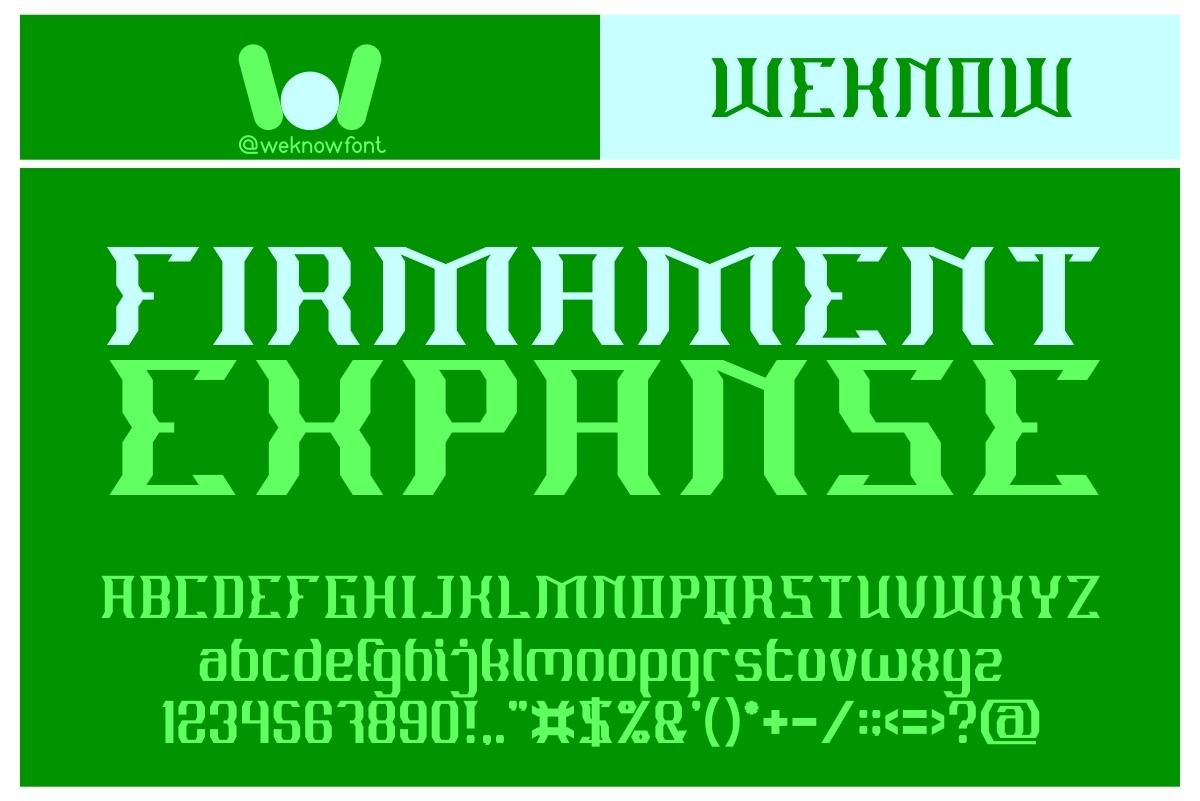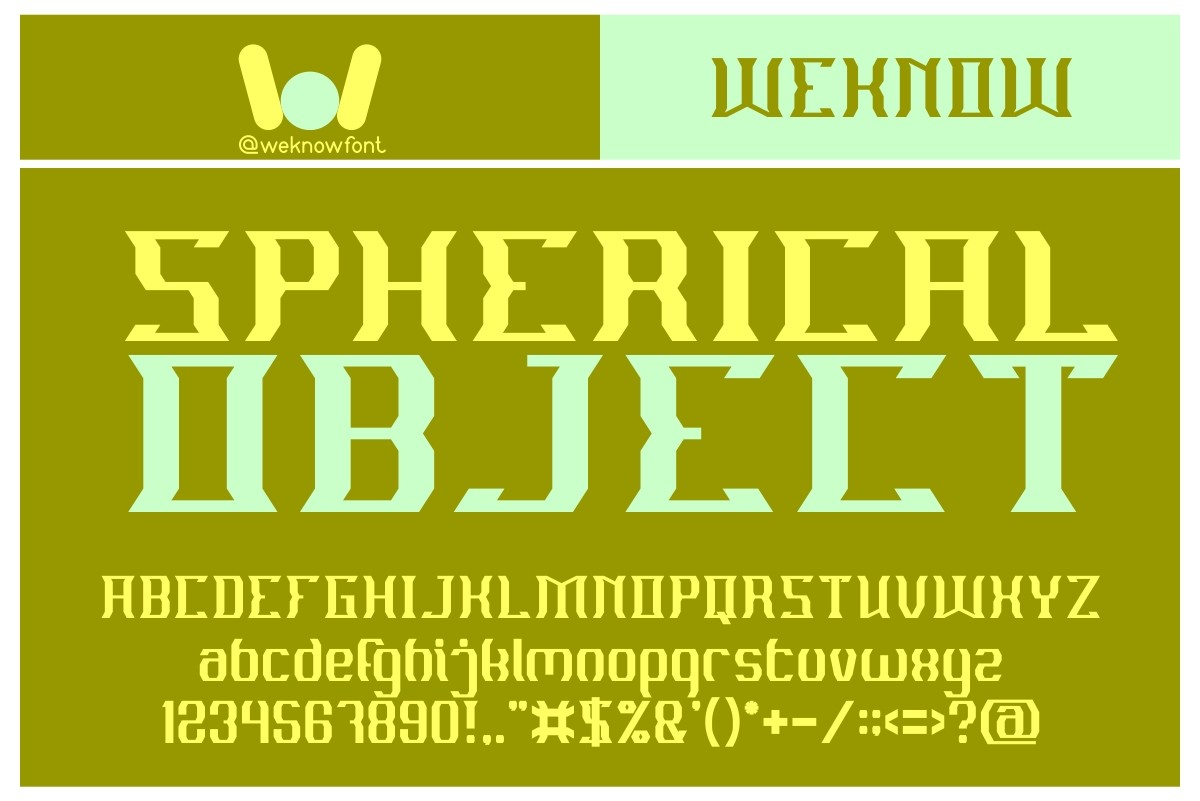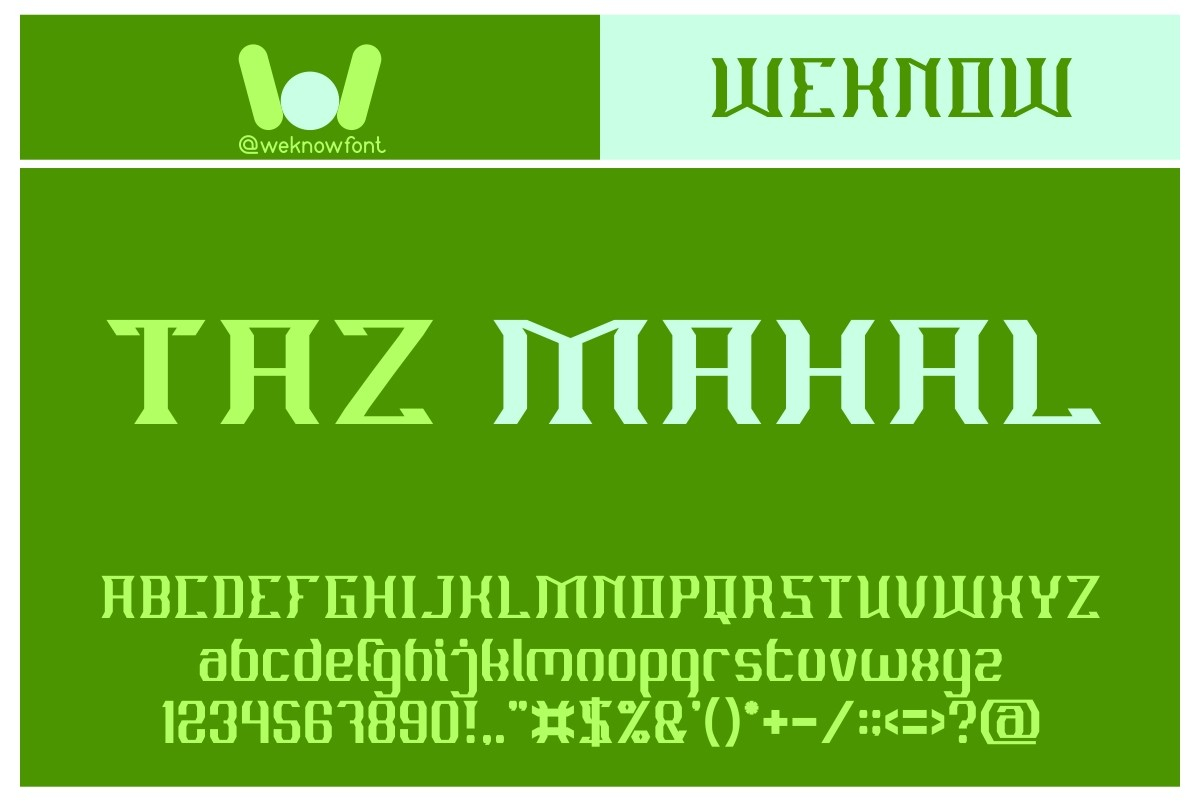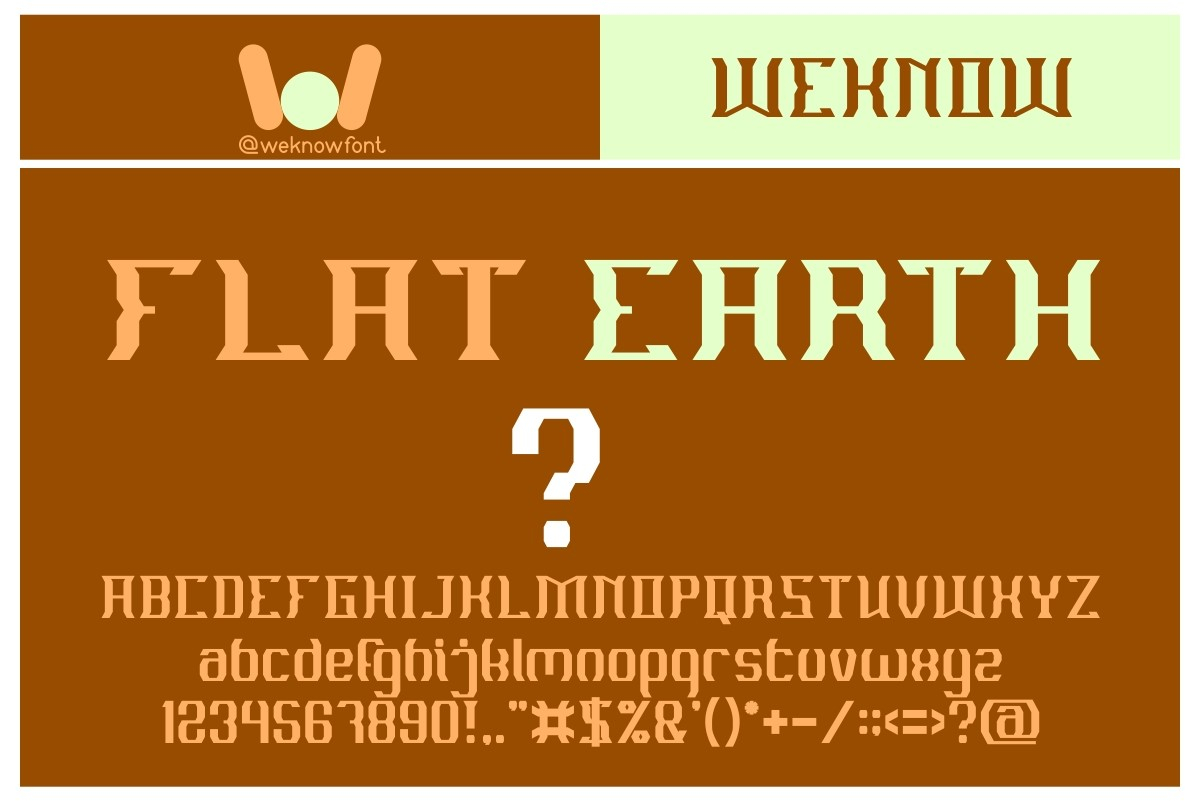
Material Science Font
About Material Science Font
Material Science is a fancy blackletter font suitable for various themes such as logos, logotypes, headlines, corporate identity, brand identity, apparel industry, posters, music, movies, games, magazines, books, comics, cartoons, YouTube, Instagram, websites, or any of your creative design projects.